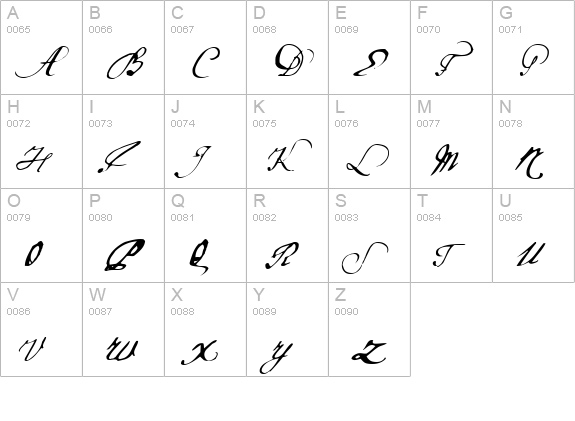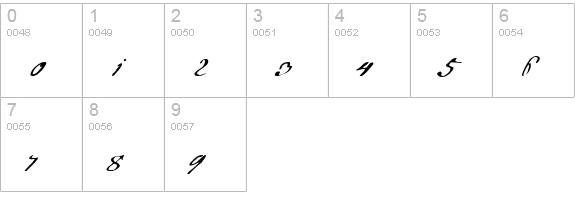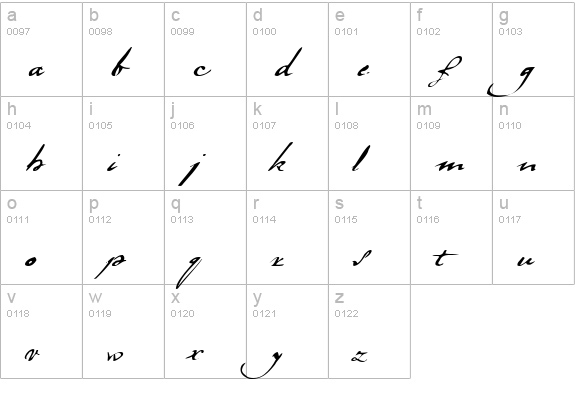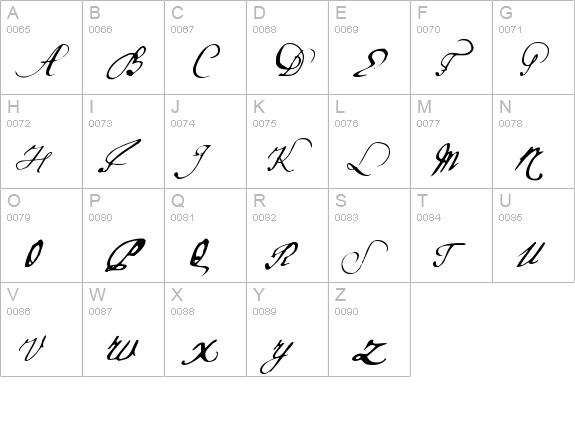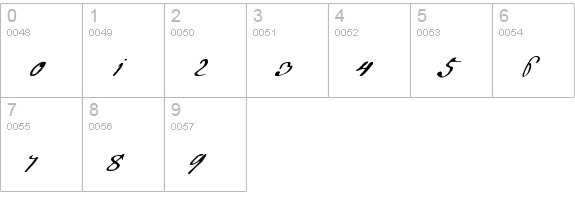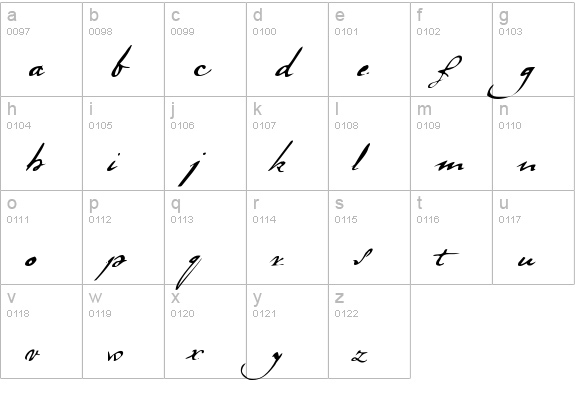
LaDanse Font Details
LaDanse font is a beautifully crafted typeface that exudes elegance and sophistication. Its intricate curves and flowing lines give it a graceful and dynamic appearance, making it perfect for adding a touch of class to any design project. The font's versatility allows it to be used for a wide range of applications, from invitations and greeting cards to logos and branding. What sets LaDanse font apart is that it is not only stunningly designed but also completely free to download. You can easily access this exquisite font at FontsMarket.com without any cost, making it a valuable addition to your font collection. With its timeless appeal and effortless charm, LaDanse font is sure to elevate your designs and leave a lasting impression on your audience.